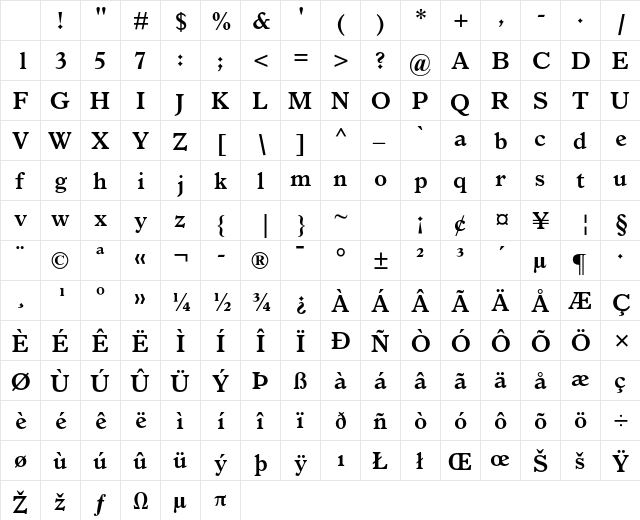
Complete Italian Old Style MT Std Bold glyph index. Displaying only characters natively supported by Italian Old Style MT Std Bold font.
Italian Old Style MT Std is a composed and adaptable typeface that performs quietly and consistently across a wide range of design contexts. Its bold stroke weight gives it real presence on the page.